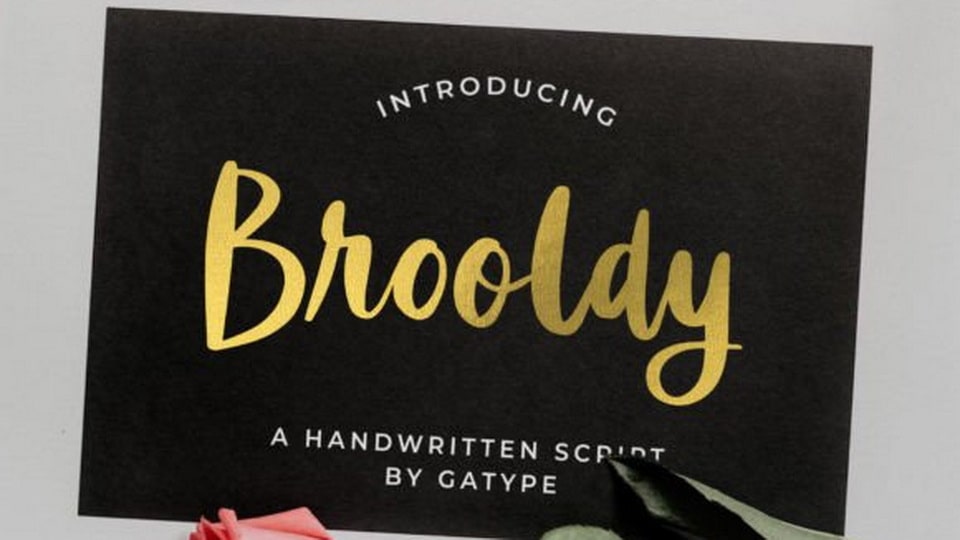
Download Brooldy font, a beautiful handwritten typeface, perfect for logo design, branding, apparel design, signage, posters, wedding invitations and more. Brooldy font was designed with the goal of creating an easy-to-read script font that would work for a variety of purposes.